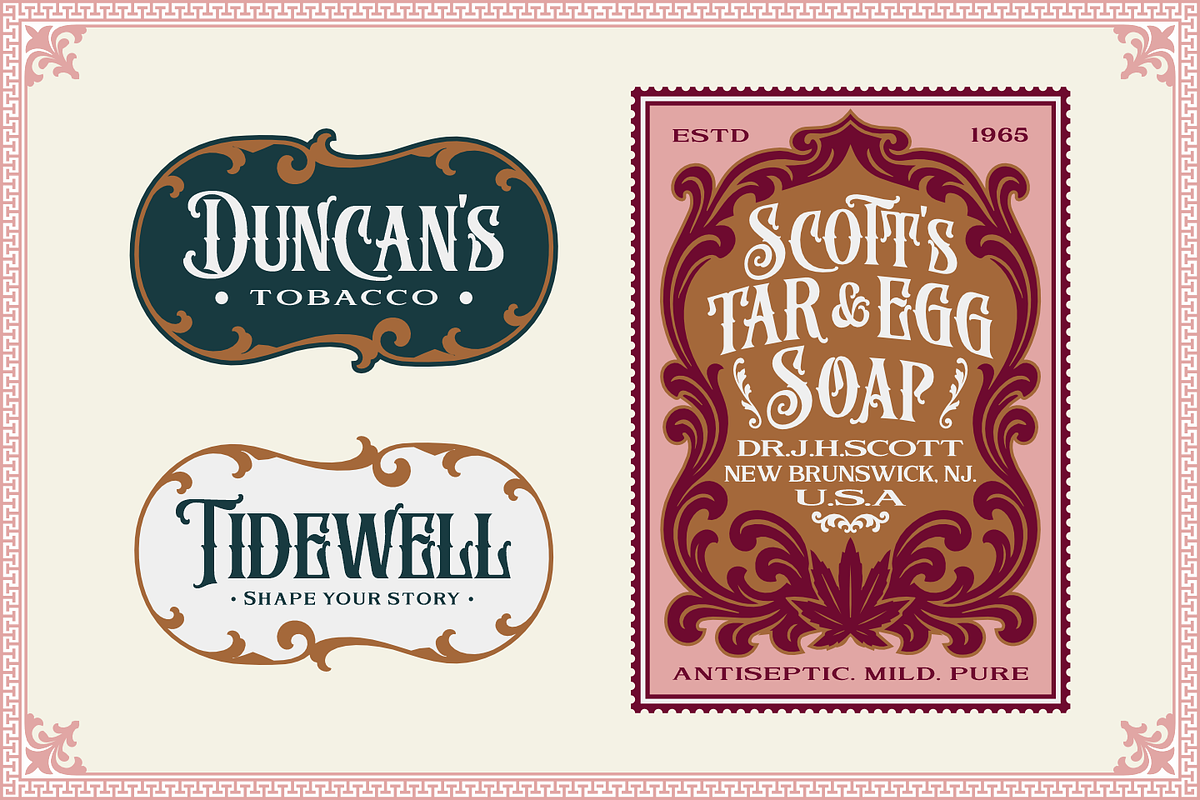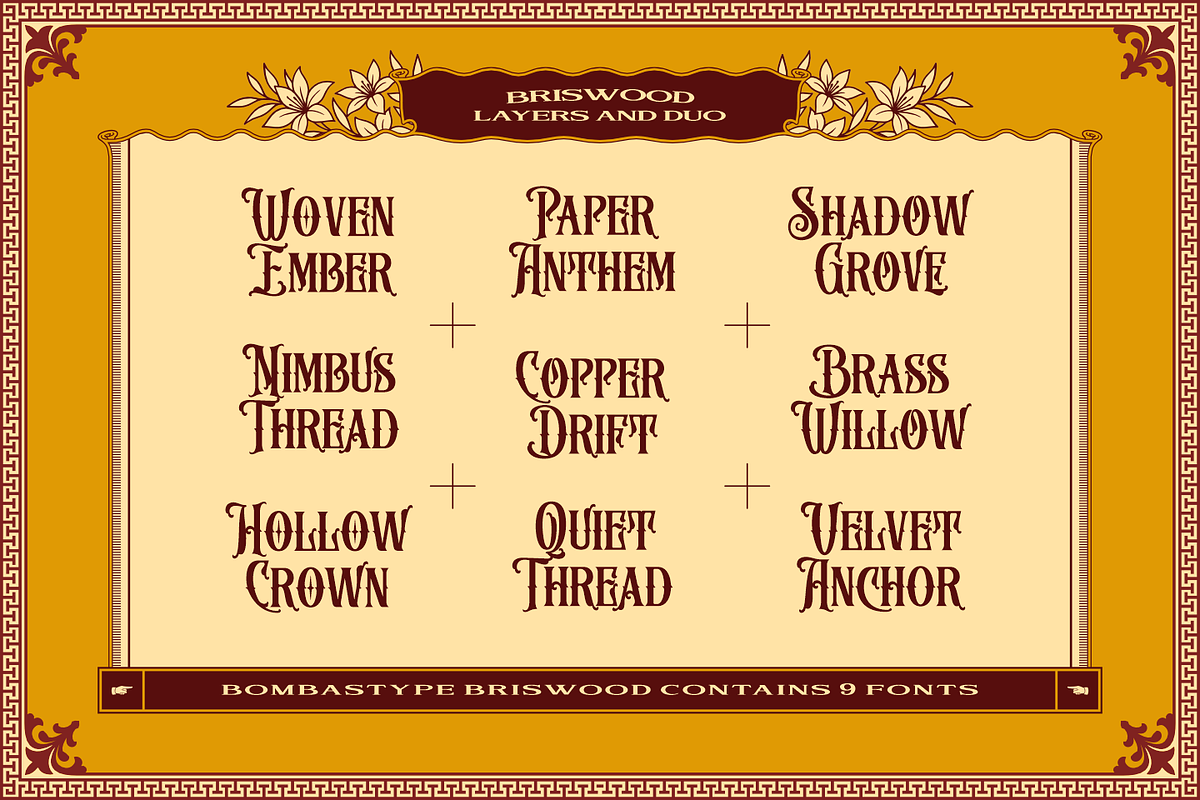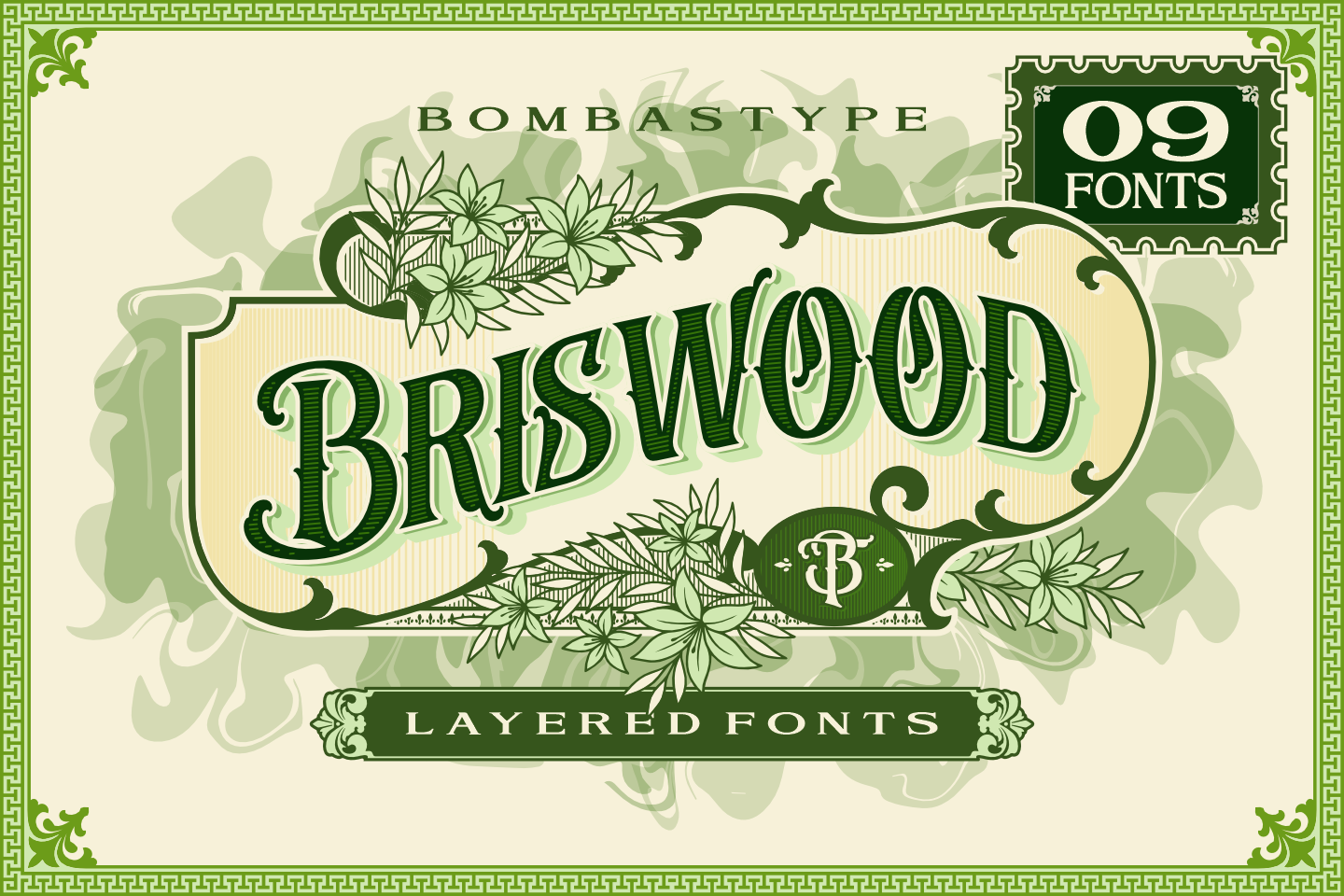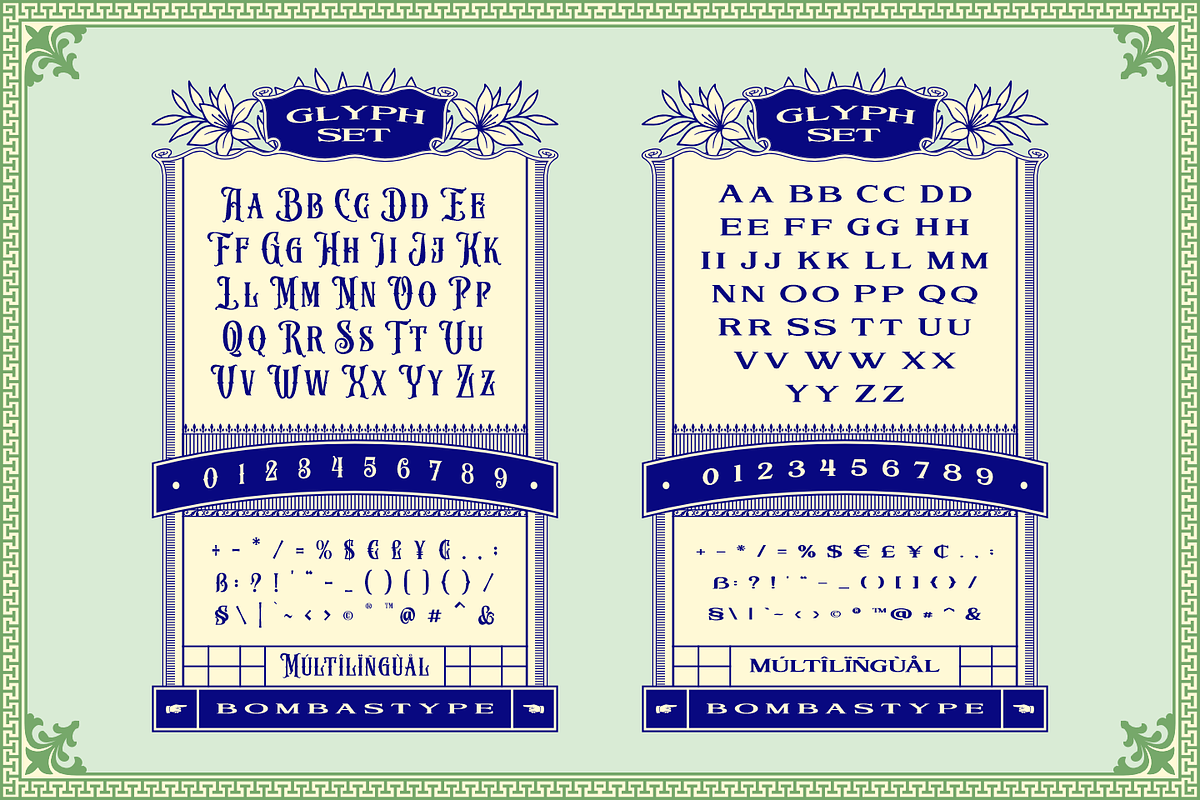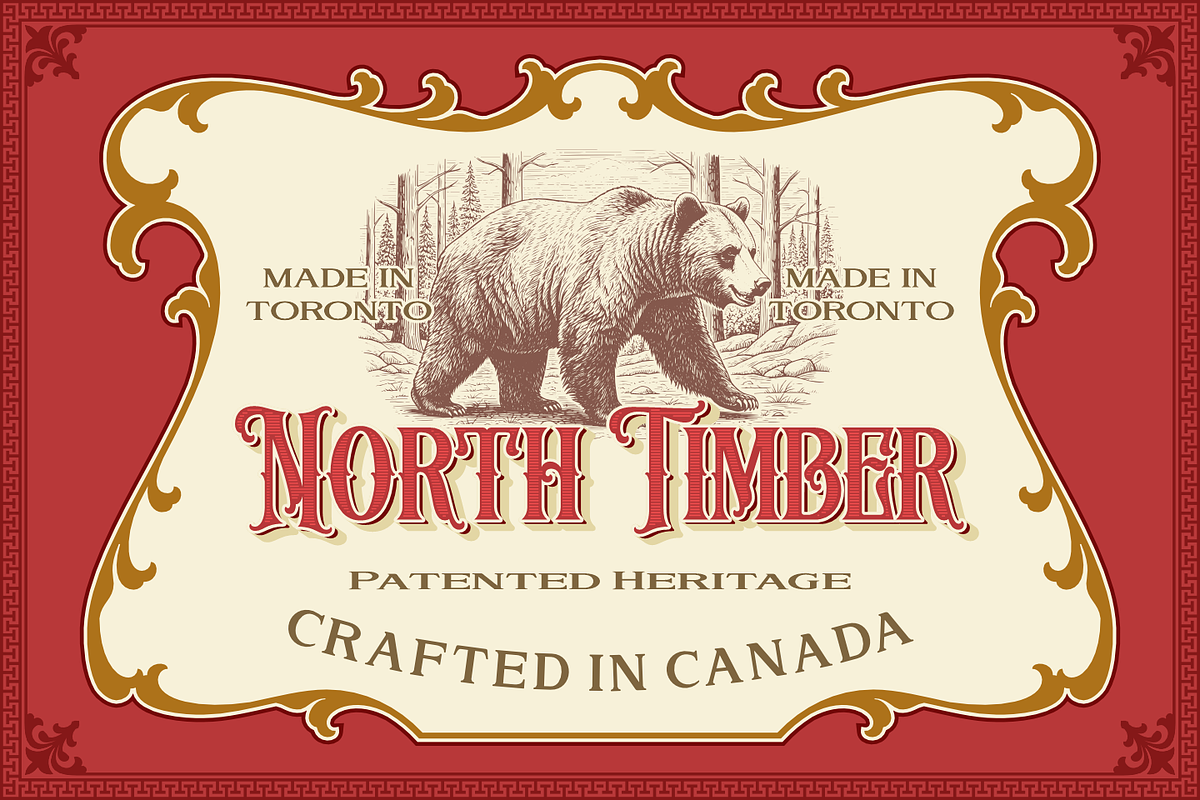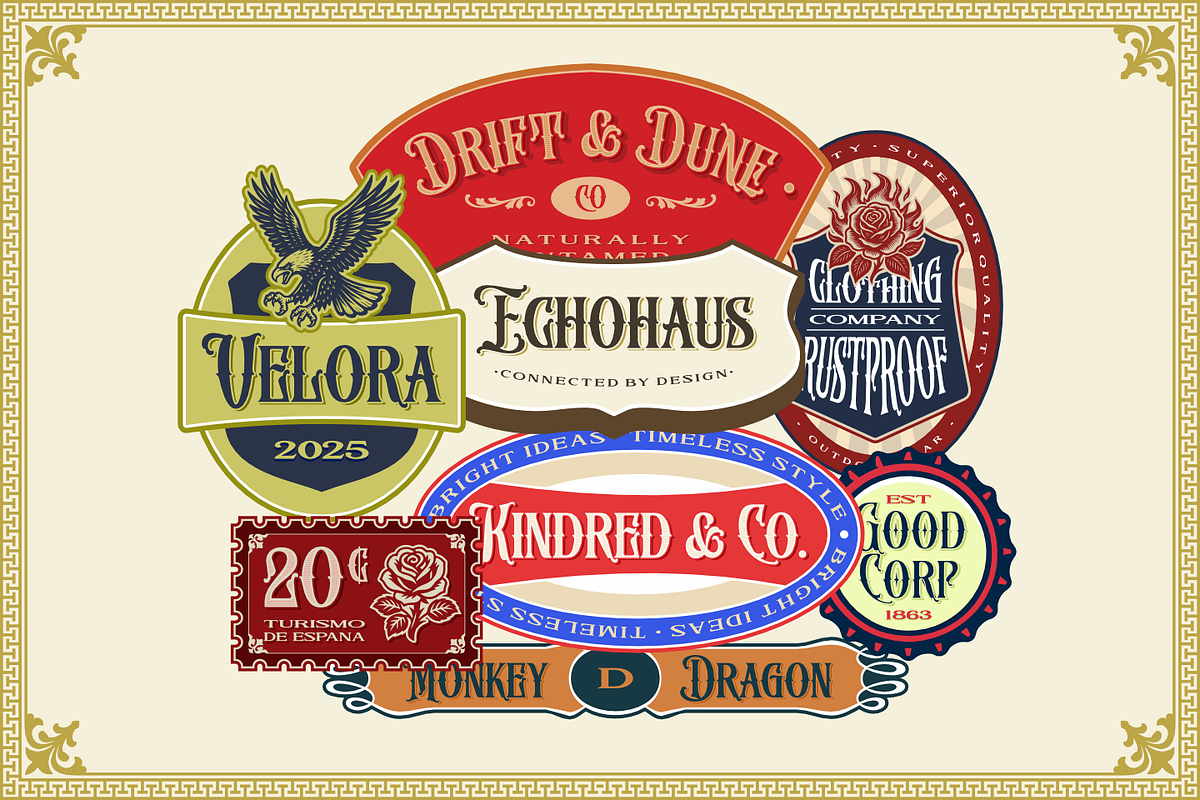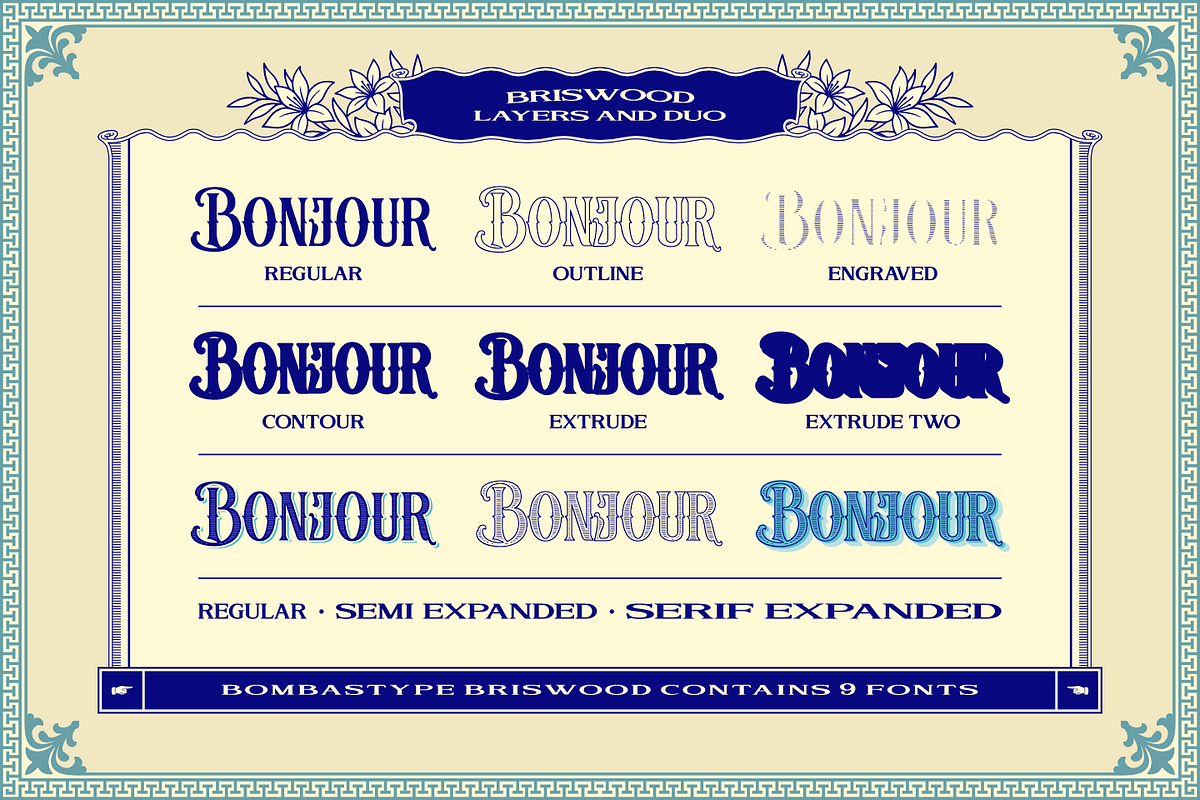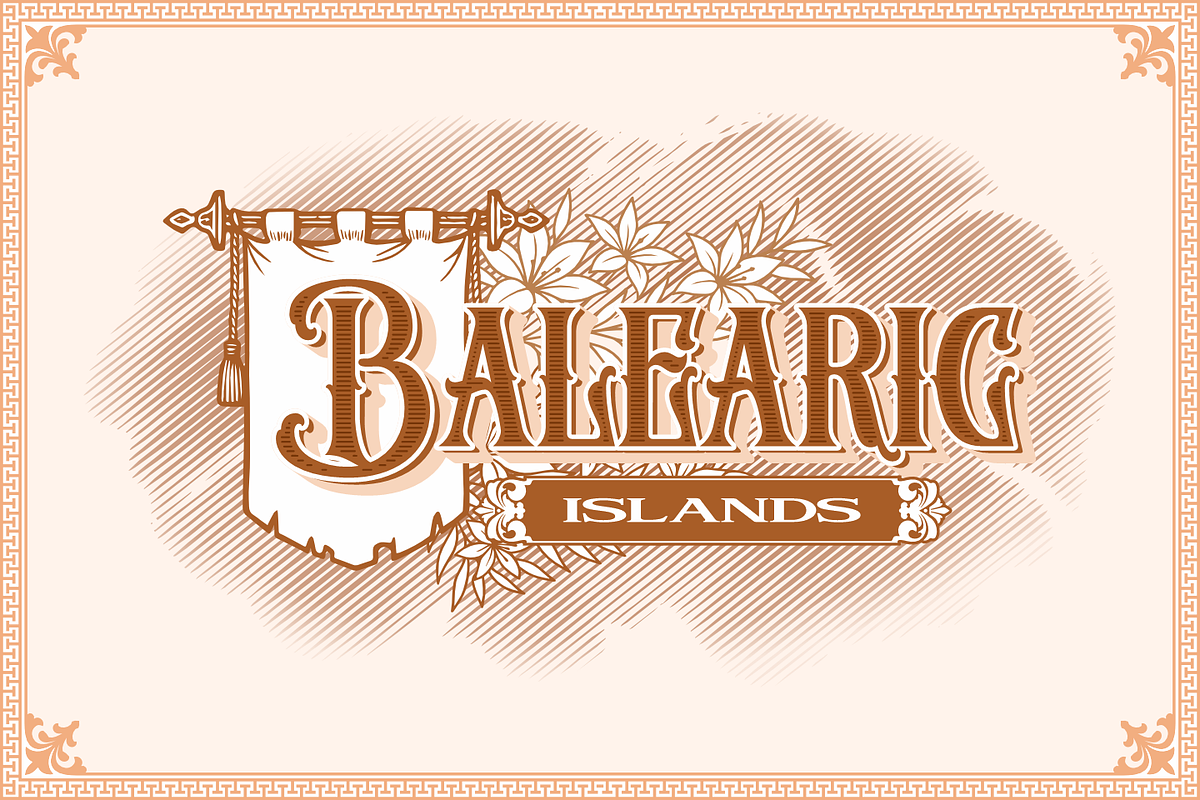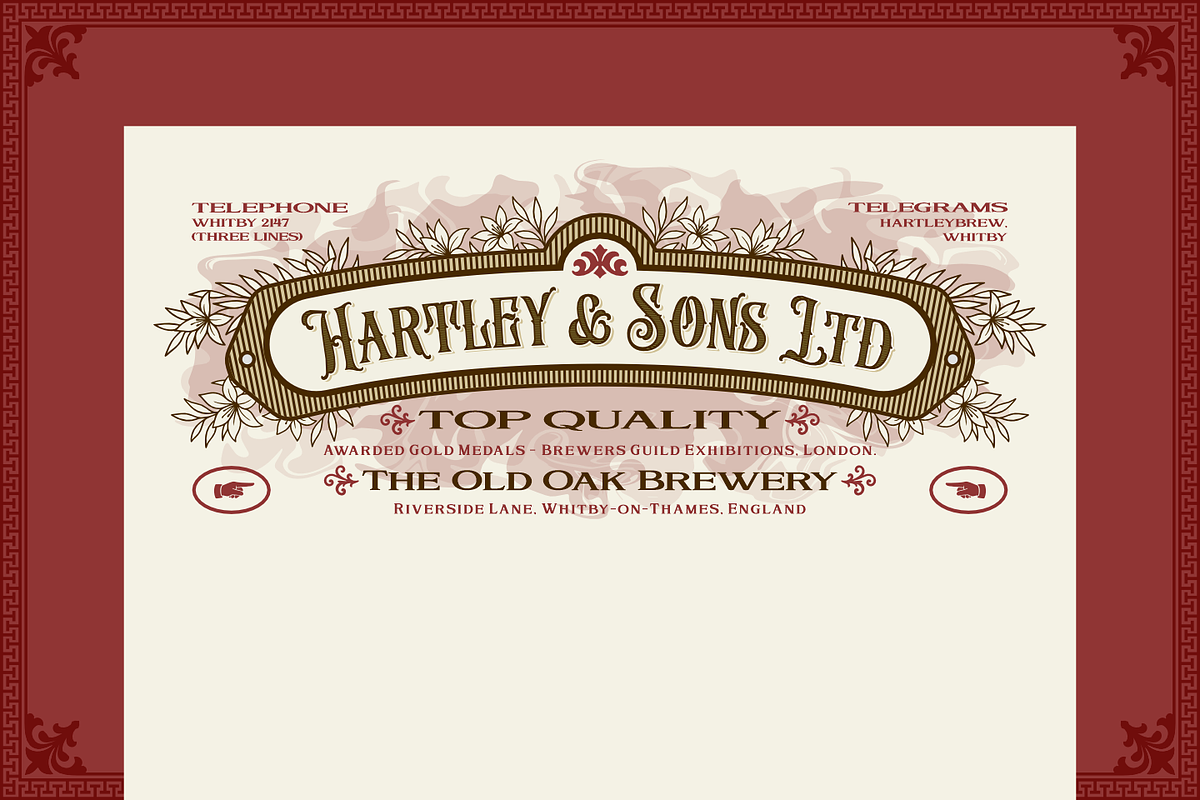
Briswood - Layered Fonts
Step into the golden age of typography with Briswood, a masterfully layered vintage font suite inspired by Victorian signage, brewery labels, and ornamental print ephemera. Designed with precision and flair, Briswood offers a bold typographic toolkit for designers seeking elegance, drama, and timeless charm.
Includes 9 Fonts Total
6 Victorian Layered Styles:
- Regular – The classic foundation
- Contour – A fine-lined accent
- Outline – Bold and open
- Engraved – Intricate and refined
- Extrude – Dimensional depth
- Extrude Two – A heavier shadow punch
3 Serif Companions (Perfect for pairing):
- Standard Serif – Clean and versatile
- Semi-Expanded – Balanced and stately
- Expanded – Grand and commanding